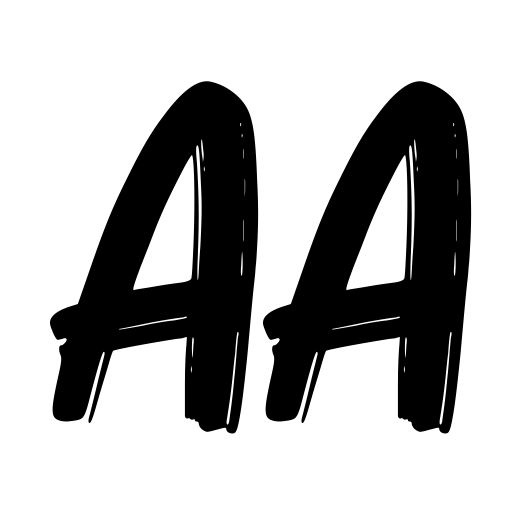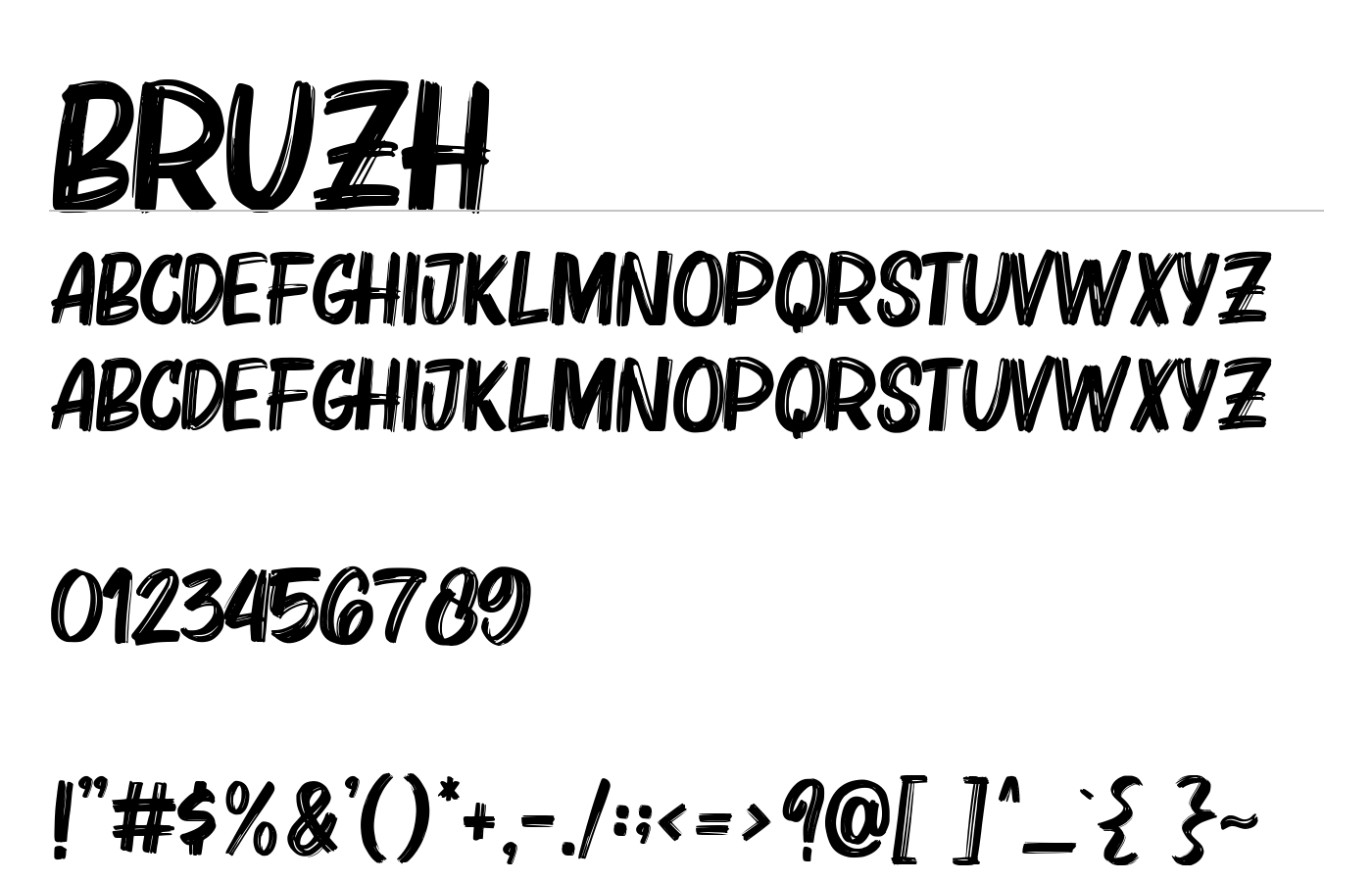
Bruzh is a bold, expressive brush-script font with a lively, hand-painted feel. Its textured, irregular strokes and slightly condensed letterforms create an energetic and casual vibe, perfect for adding a dynamic, artistic touch to logos, posters, and creative branding. This font works especially well where a youthful, approachable, and handcrafted style is desired.
Bruzh Font
About Bruzh Font